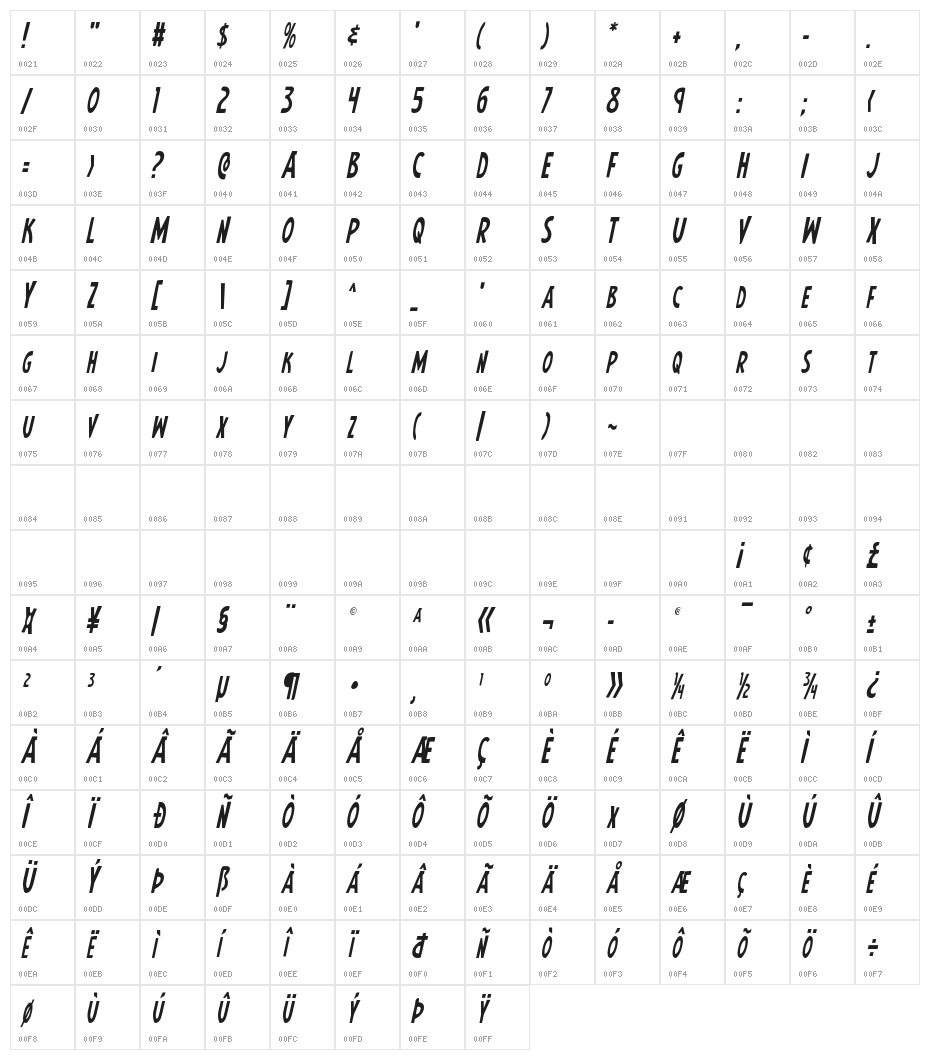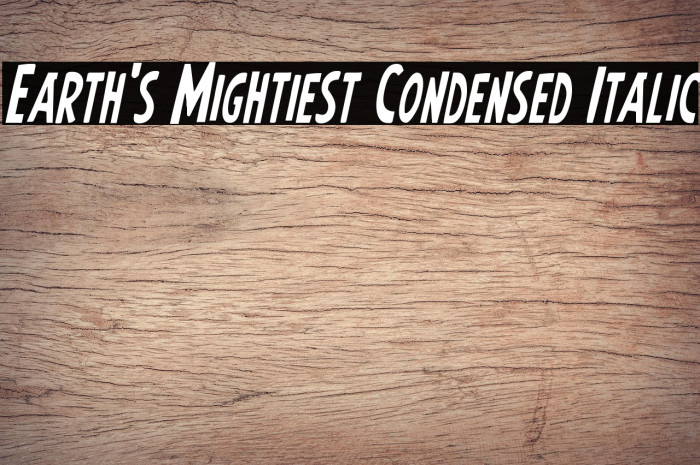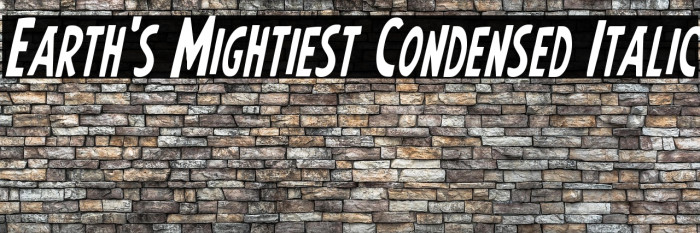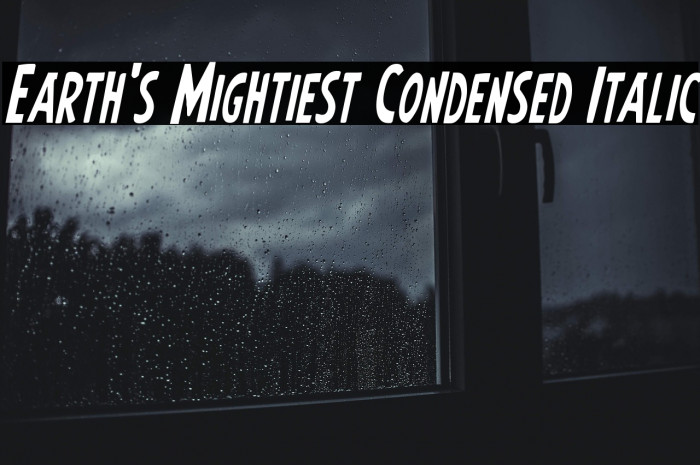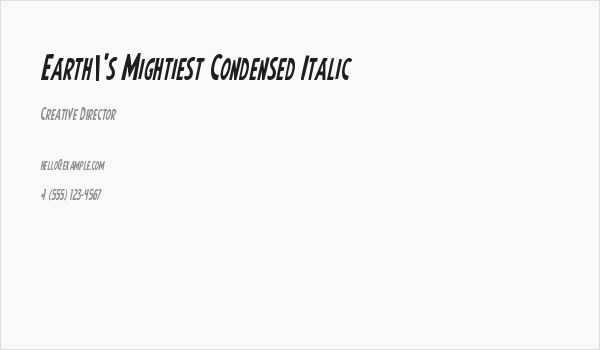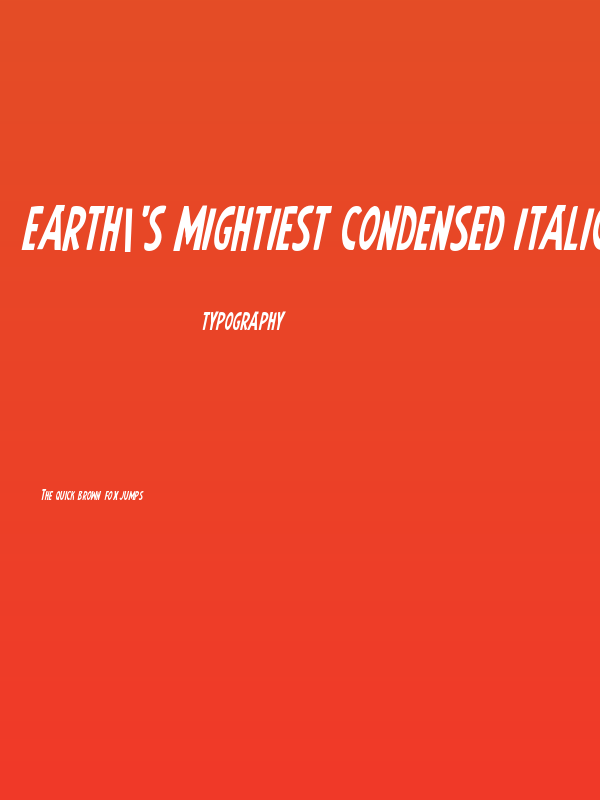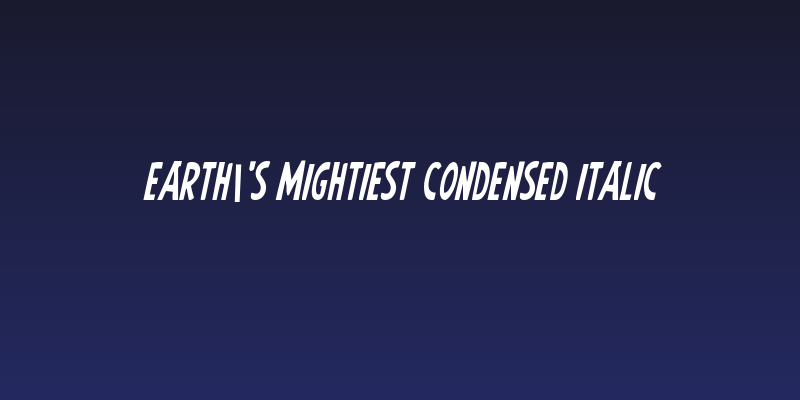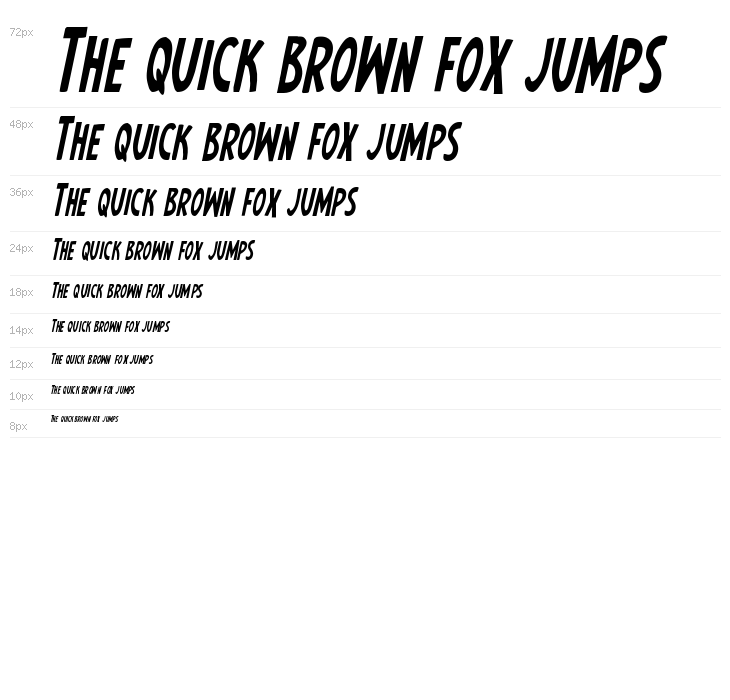
Earth's Mightiest Condensed Italic Font
Earth's Mightiest Condensed Italic Description
This font features a bold and dynamic style with a condensed and italicized form. The characters are slanted, giving a sense of motion and energy. The strokes are thick and consistent, providing a strong visual impact. The uppercase and lowercase letters maintain a uniform height, enhancing readability. The numbers and special characters are designed to match the overall aesthetic, ensuring a cohesive appearance across all elements. This font is ideal for projects that require a bold statement or a modern, energetic feel.
| Proposed Projects | Ideal for headlines, posters, branding, and any project that requires a bold and dynamic visual impact. |